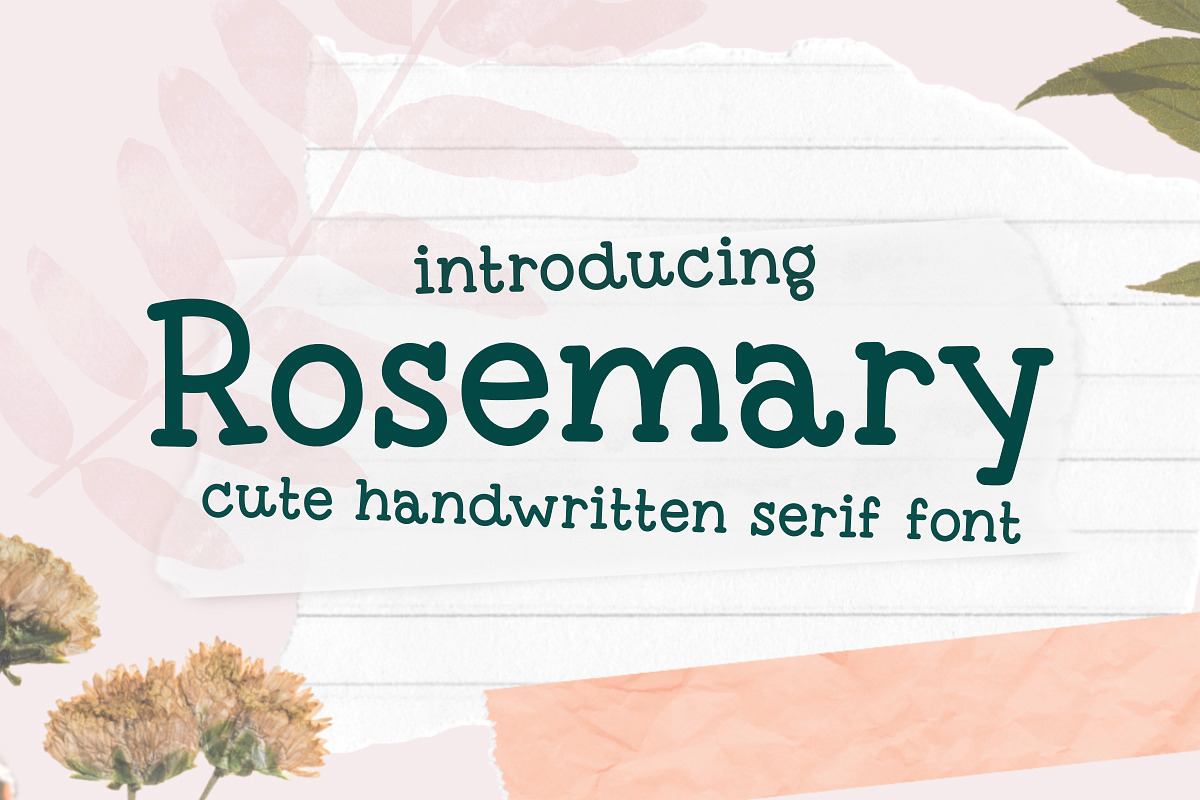
Rosemary Cute Handwritten Serif Font Free Download
Rosemary Cute Handwritten Serif Font Free Download is a charming and whimsical serif typeface that combines the elegance of traditional serifs with a playful handwritten touch. With its rounded edges, bouncy letterforms, and delightful personality, this font is perfect for branding, greeting cards, children's books, social media graphics, and DIY projects.
Its soft, friendly vibe makes it ideal for designs that need a personal and lighthearted feel. Whether you’re creating logos, packaging, or invitations, Rosemary Cute Handwritten Serif Font Free Download brings warmth and creativity to every word.
Its versatile design works well in both print and digital formats, making it a must-have for designers looking for a unique and inviting font.